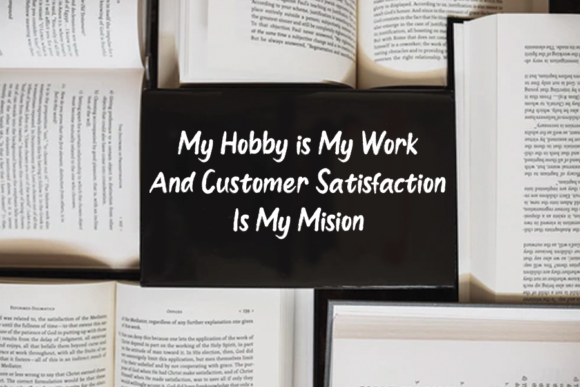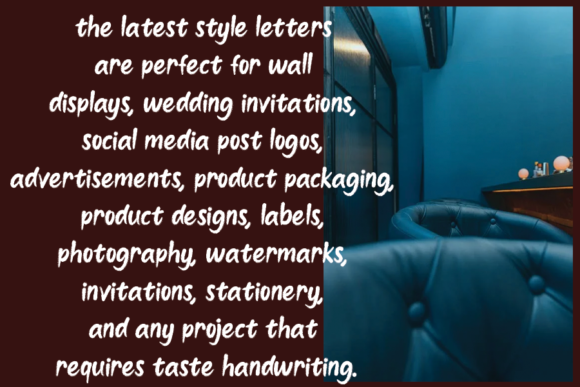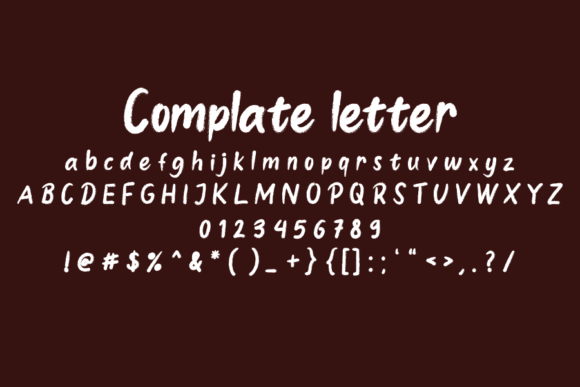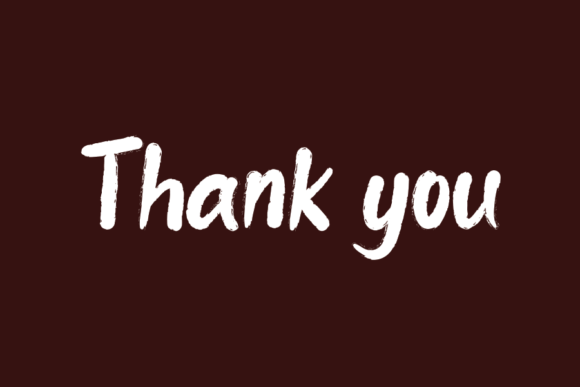
The Birth of a Timeless Design
As designers, we’ve all been there – staring at a blank canvas, searching for the perfect font to bring our vision to life. It’s a moment of pure creative chaos, where the right choice can make or break the entire project. And then, like a breath of fresh air, you stumble upon something that changes everything. For me, that moment came when I discovered the Humble Jumble Font.
This beautiful, flowing handwritten font is the result of a labor of love, crafted with the help of a trusty brush pen. Its unique, hand-drawn style is not only visually stunning but also incredibly versatile – making it the perfect addition to any design project. Whether you’re creating a romantic wedding invitation, a whimsical children’s book, or a bold brand identity, the Humble Jumble Font is sure to elevate your designs to new heights.
Humble Jumble Font Key Features
- Font Style: A distressed, handwritten font with a vintage feel, ideal for creative and informal designs.
- Unique Characteristics: Includes 100 unique characters, including uppercase and lowercase letters, numbers, and punctuation marks, with a distinctive, hand-written feel.
Humble Jumble Font Review
I recently had the chance to work with the Humble Jumble Font, and I have mixed feelings about it. Here are some of my thoughts.
- Unique character set: The Humble Jumble Font has a distinct character set that can add a fun and playful touch to your designs.
- Highly customizable: This font is available in various weights and styles, making it easy to find the perfect fit for your project.
- Works well for digital use: The Humble Jumble Font is optimized for digital use and displays well on various screen sizes and resolutions.
- Not ideal for body text: While the font is great for headlines and titles, it may not be the best choice for body text due to its irregular letterforms.
- May require manual kerning: The font’s character set can make kerning more challenging, especially when working with complex phrases or sentences.
The Humble Jumble Font is a great addition to any designer’s toolkit, but it’s not a one-size-fits-all solution. It excels in certain areas, but may not be the best choice for every project. With careful consideration and planning, however, it can be a valuable asset for designers looking to add a unique touch to their work.
Tips for Getting the Most Out of Humble Jumble Font
To get the most out of the Humble Jumble font, experiment with different font sizes, colors, and styles. You can also combine the font with other creative elements, such as graphics or textures, to add visual interest.
The Humble Jumble font is ideal for creative projects, such as:
- Quote graphics
- Invitations and party decor
- Web design and branding
- Print materials, such as business cards and brochures
Alternatives to Humble Jumble Font
Pacifico is a beautiful, elegant script font that works well for titles and headings. It’s ideal for use in branding, packaging, and advertising. Pacifico is a more refined and sophisticated alternative to Humble Jumble Font, making it suitable for high-end designs.
Comparison: Pacifico is more polished and less playful than Humble Jumble Font, but still conveys a sense of warmth and elegance.
Great Vibes is a fun, energetic script font that’s perfect for creating a lively atmosphere. It’s great for use in posters, social media graphics, and other promotional materials. Great Vibes is a more energetic and dynamic alternative to Humble Jumble Font, making it suitable for designs that need to grab attention.